Antique font
/ Journey Through the Ages: Antique / Fonts That Tell Stories
/ The first slab serif typeface, known as “Antique,” was designed by Vincent Figgins in 1817 in London.
Antique
fonts also known
Eguptian
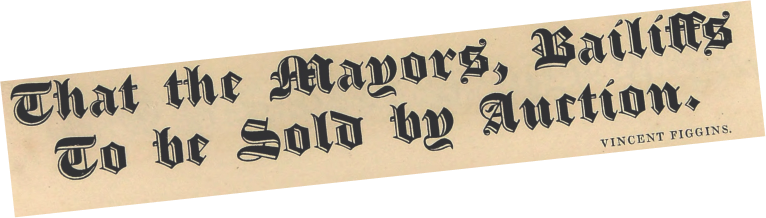
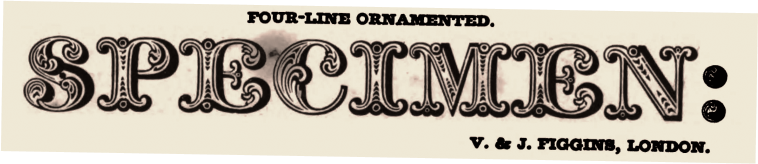
Antique fonts, also known
as “Egyptian” or “Slab Serif” fonts, are a type of serif font that emerged in the early 19th century
The first slab serif typeface, known as “Antique,” was designed by Vincent Figgins in 1817 in London. These fonts were initially used in advertising, posters, and newspapers due to their bold and attention-grabbing appearance.
The popularity of Antique fonts continued to grow throughout the 19th century, and they became a standard in printing and advertising. The design of Antique fonts continued to evolve, and in the late 19th century, the fonts were refined to include more variations in weight and width.
During the 20 th
Antique fonts were
used in various
designs
During the 20th century Antique fonts were used in various designs, including book covers, packaging, and logos
The style of Antique fonts has also influenced other typography designs, including modern slab serifs and geometric sans-serifs.